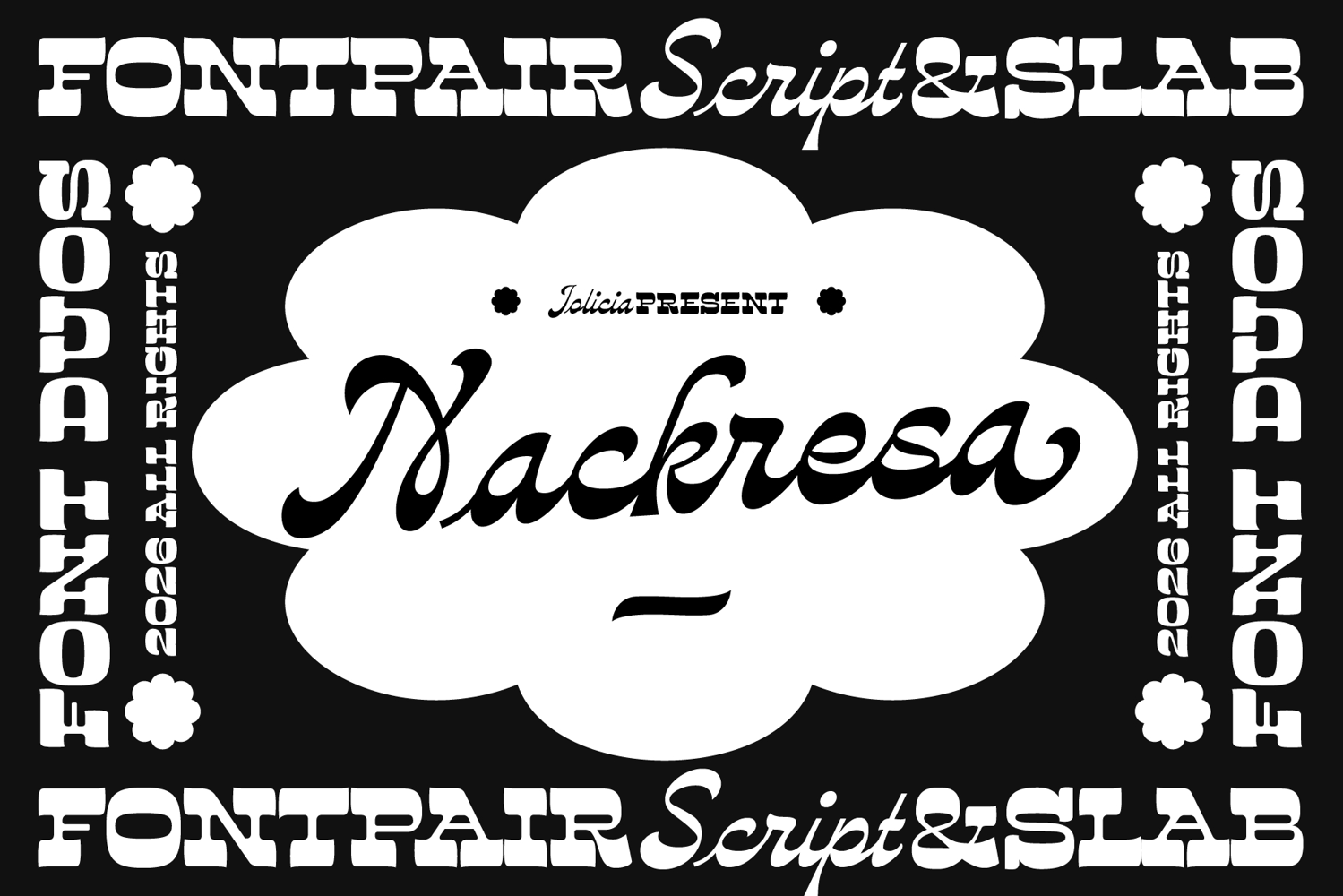
Nackresa | Modern Vintage Duo
Nackresa is a bold and expressive font duo that combines reverse-contrast slab serif and elegant script into one powerful visual identity. Designed to balance structural strength with fluid expression, this typeface delivers a distinctive and memorable character.
The slab serif style features a unique reverse-contrast design, creating an experimental, vintage-modern aesthetic with strong visual impact. Meanwhile, the flowing script adds a soft and artistic touch, enhancing visual harmony in every composition.
With its strong contrast, refined details, and unmistakable identity, Nackresa is more than just a font. It serves as a versatile visual statement for modern design projects across branding, editorial, packaging, and digital media.